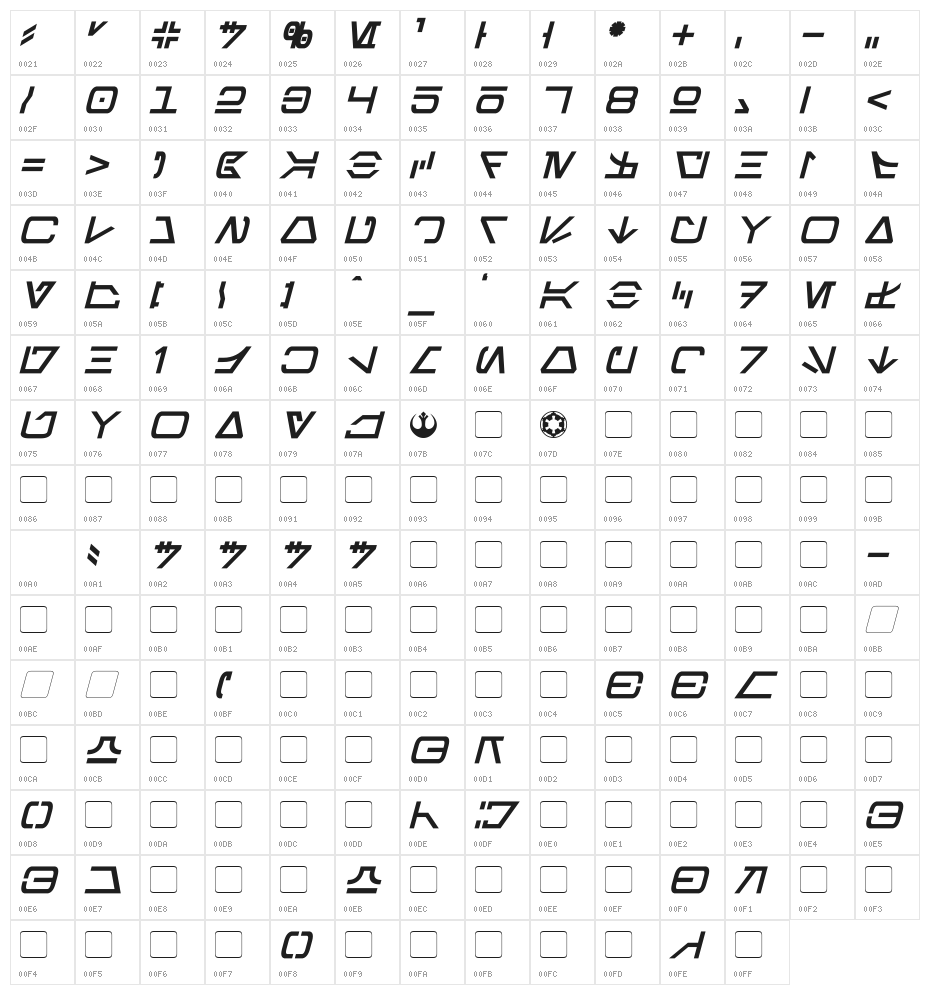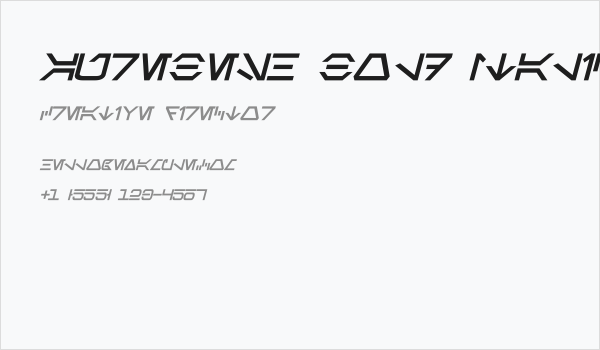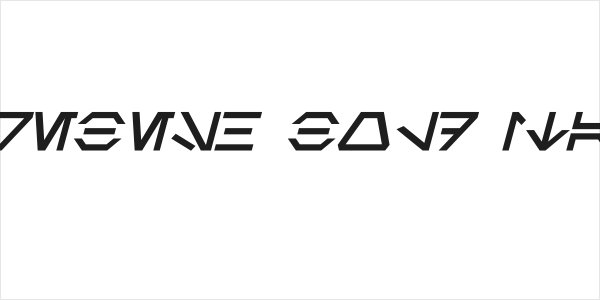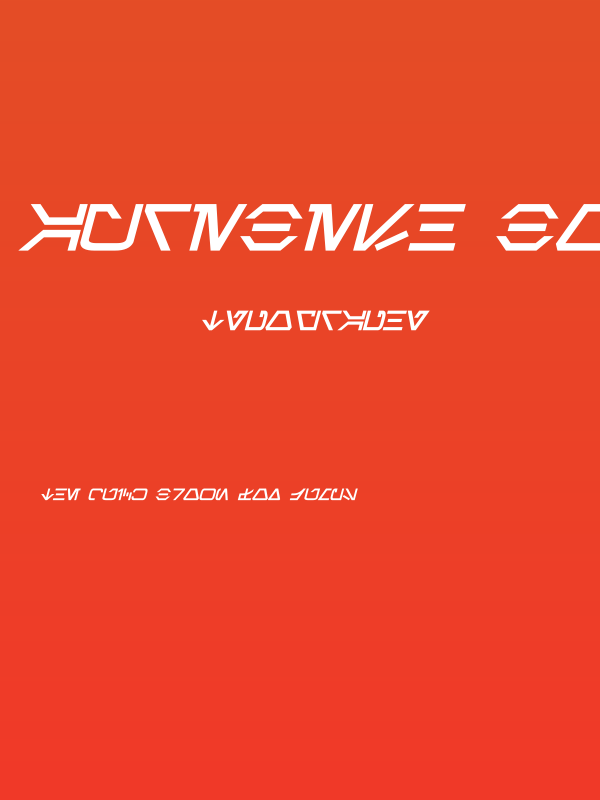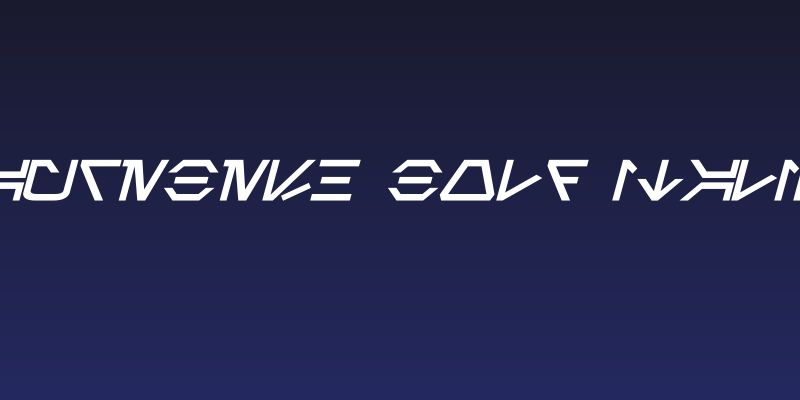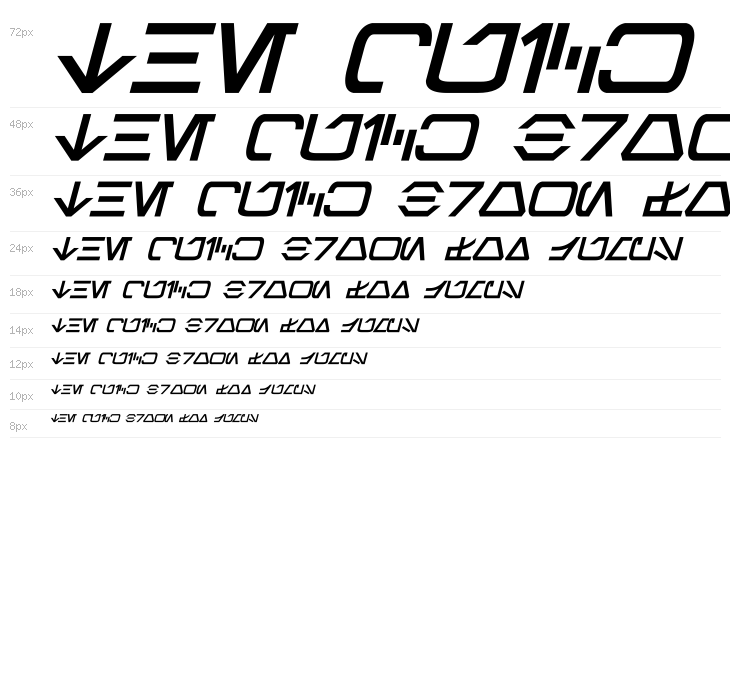
Aurebesh Bold Italic Font
Aurebesh Bold Italic Description
This font is a bold and italicized script that mimics a futuristic or alien language, often associated with science fiction themes. The characters are angular and geometric, with a consistent slant that gives a sense of motion and urgency. The strokes are thick and uniform, providing a strong visual impact. The numbers and special characters follow the same stylistic approach, ensuring a cohesive look across all elements. The design is highly stylized, making it suitable for creative and thematic projects.
| Overall Style | Futuristic, Decorative |
| Use Case | Logos, Posters, Themed Events |
| Proposed Projects | Ideal for science fiction themed projects, video game interfaces, movie posters, or any creative work requiring an alien or futuristic aesthetic. |